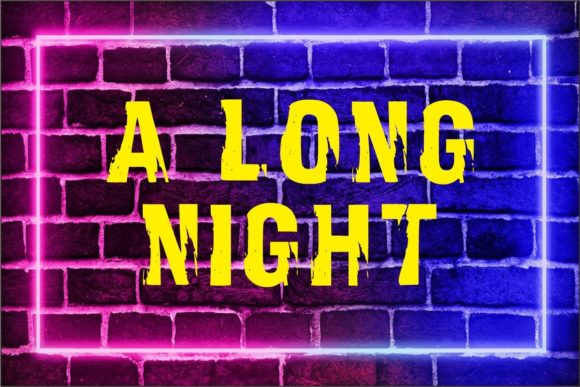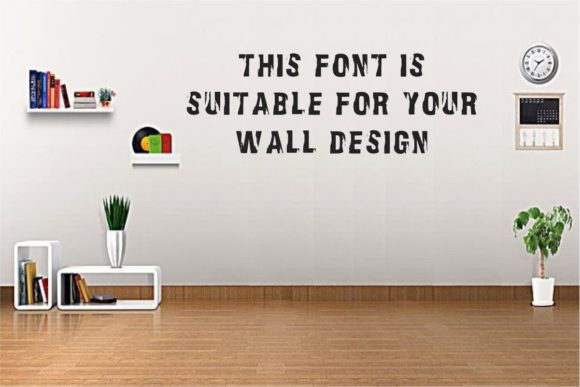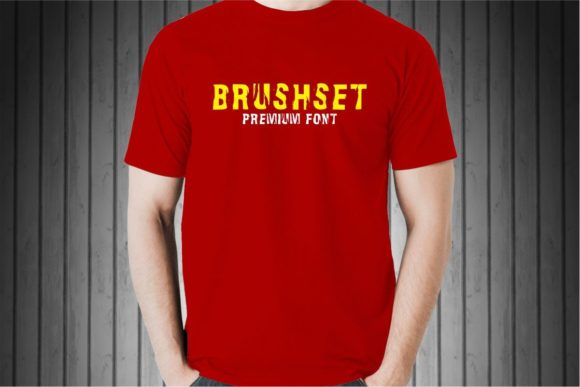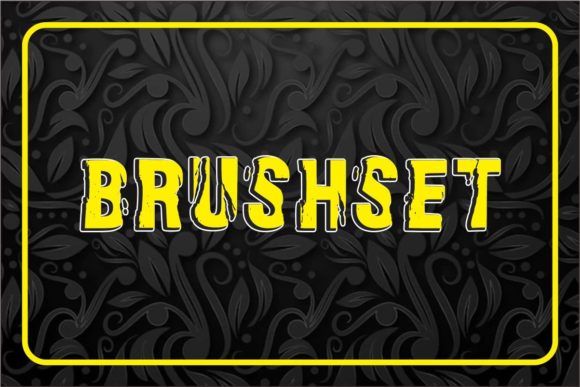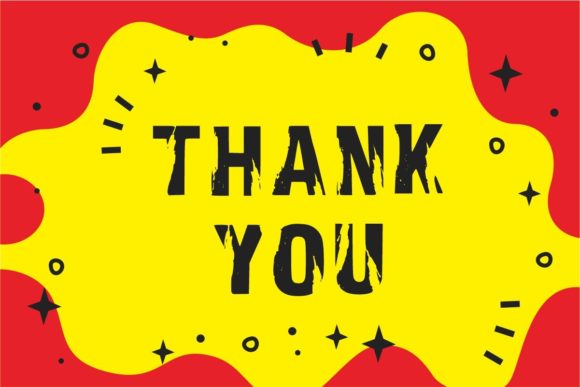
Introduction to Brushset Font
Brushset is a cool, unique, and attractive decorative font.
It embodies fun is a perfect choice for design activities or digital clothing projects, etc This font is in the form of graffiti which means you can easily access all the glyphs and strokes.
Key Features of Brushset Font